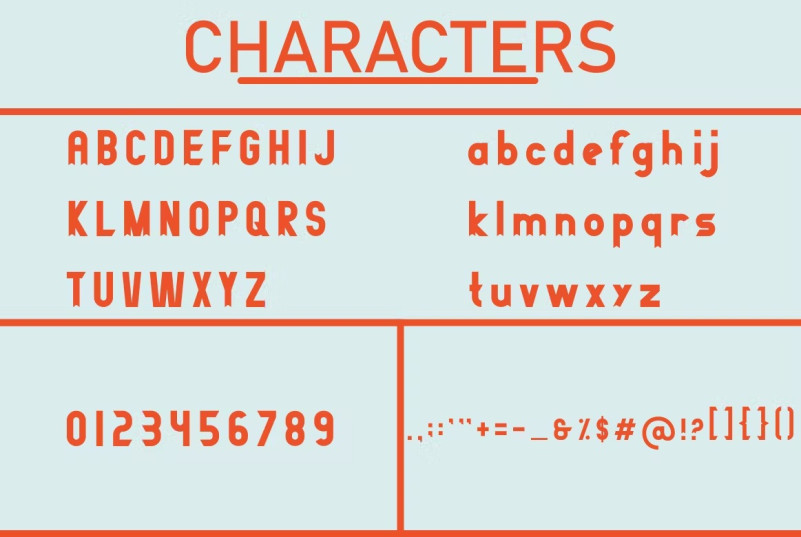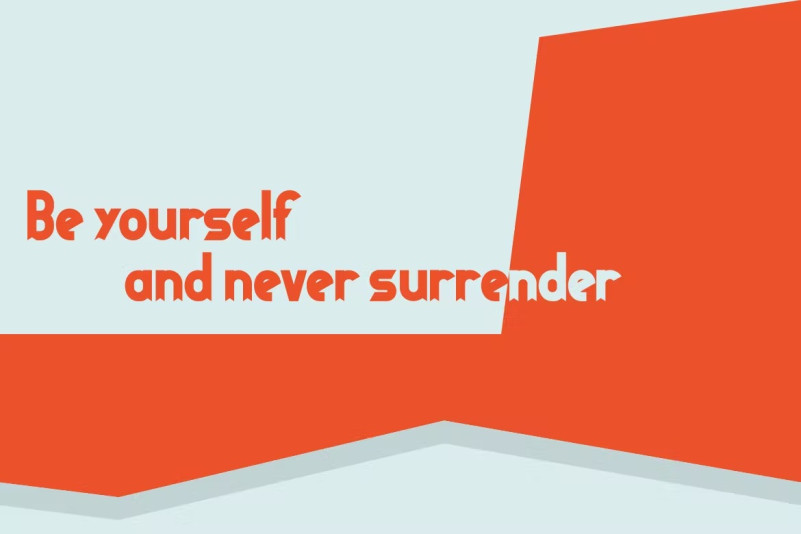
Panarom Font
Panarom Font – Modern Font is a bold and authentic display font. The font is suitable for any branding projects such as Logo printing, t-shirts, etc. She stands out in a wide range of contexts.